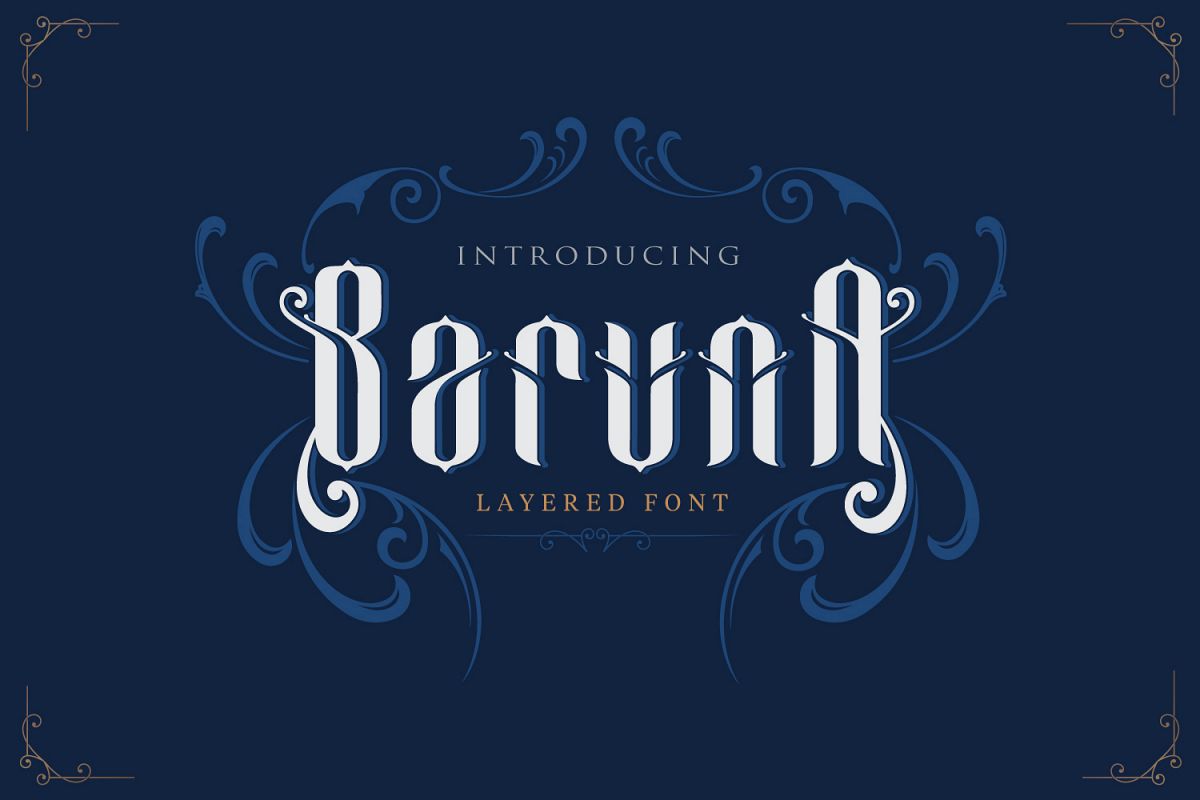
Baruna
Baruna Typeface
Introducing a new display decorative font with 3 styles: regular, layer and ornament.
Baruna Typeface is perfect for quotes, logos, label or packaging design.
• All Caps & Small Caps font